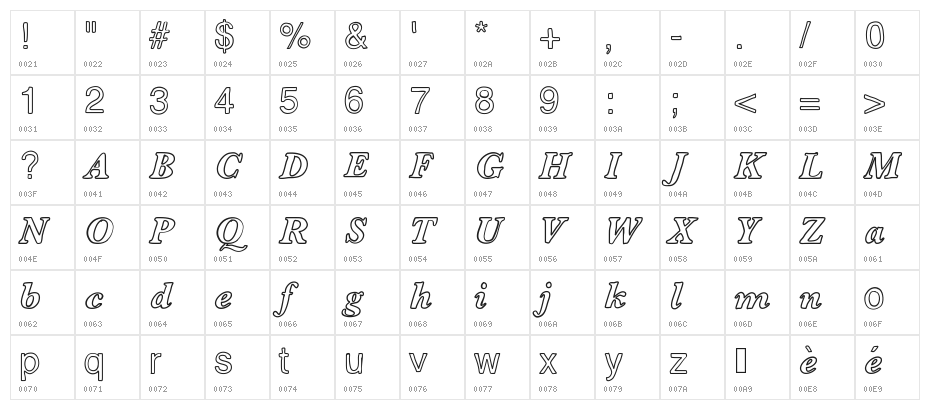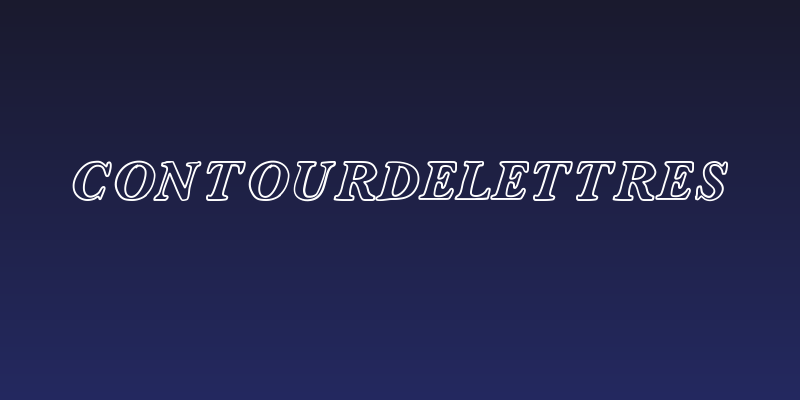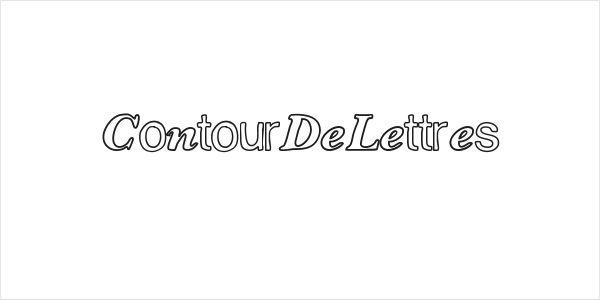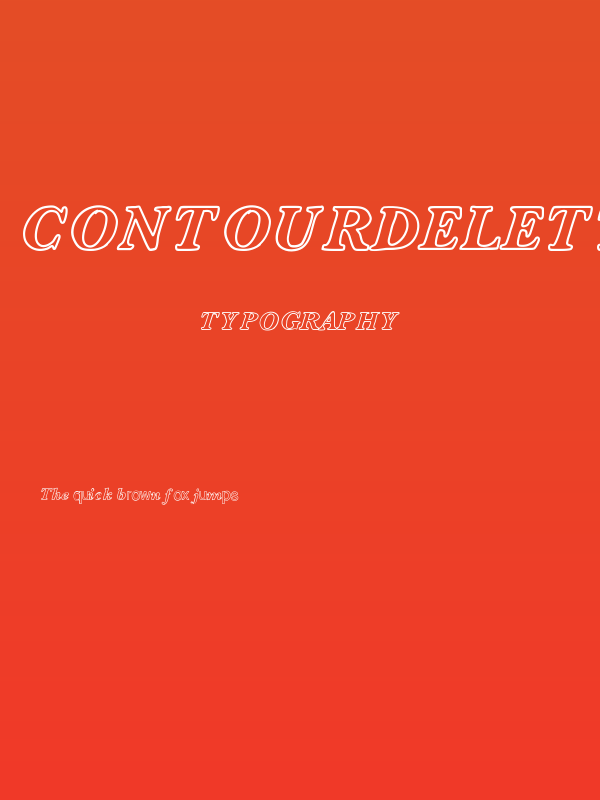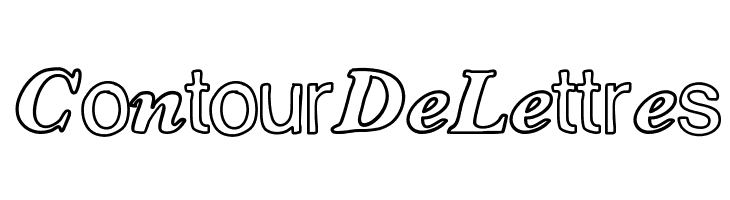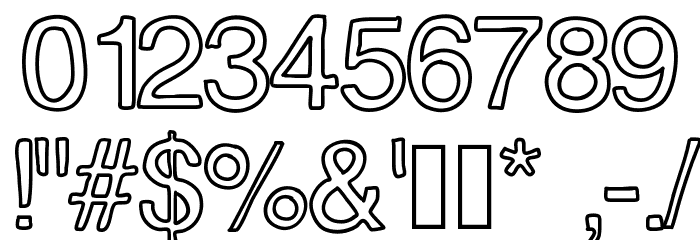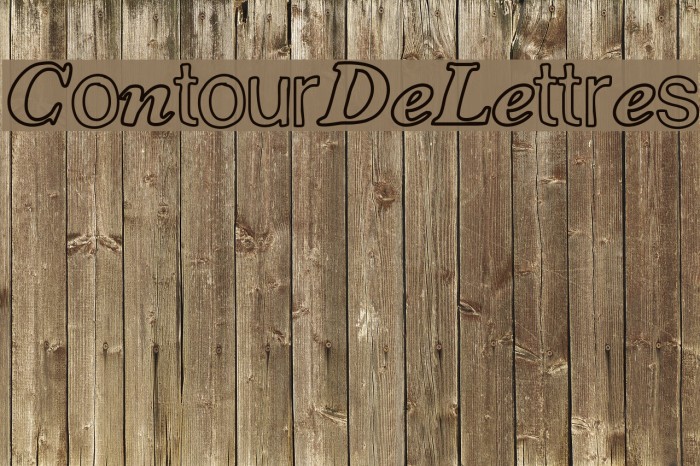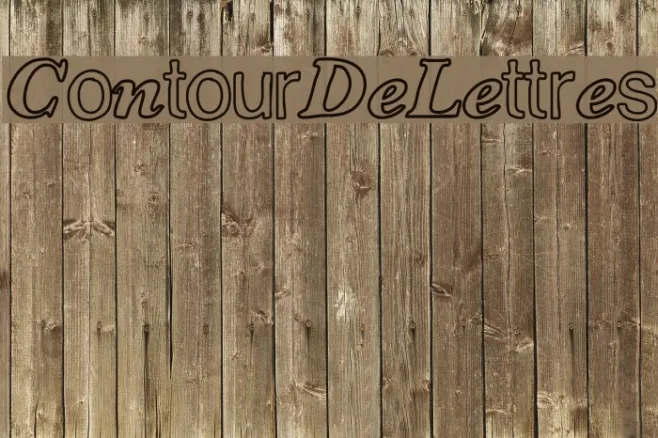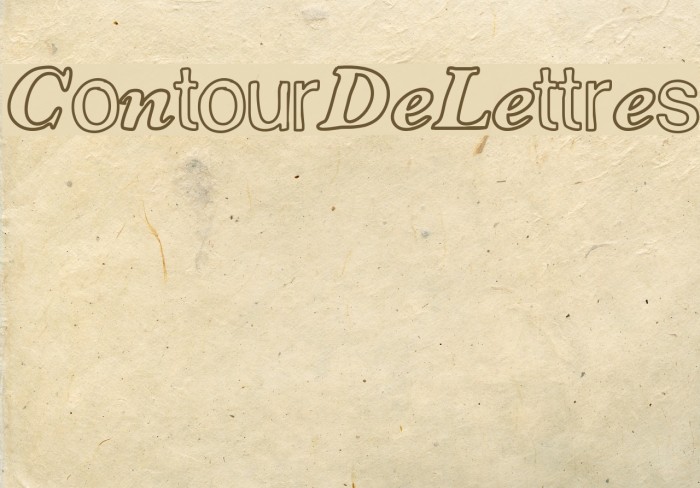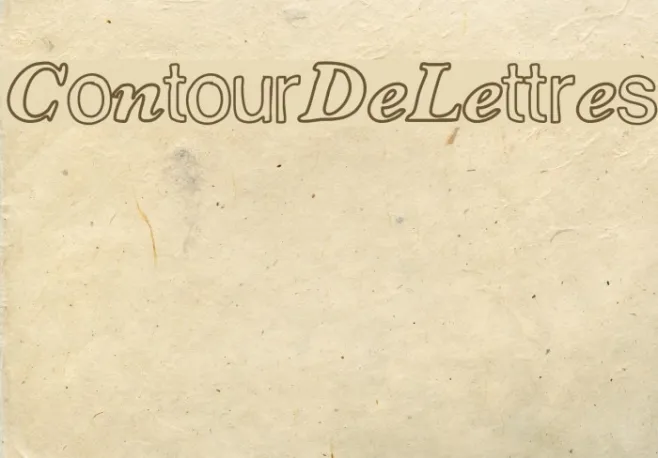
ContourDeLettres Font
ContourDeLettres Description
This font features a distinctive outline style that gives it a unique, eye-catching appearance. The uppercase letters are bold and prominent, with a slight slant that adds a dynamic feel. The lowercase letters maintain the same outline style, offering a cohesive look. Numbers and special characters are also included, each designed with the same outline effect, ensuring consistency across all characters. This font's playful yet elegant style makes it suitable for a variety of creative projects.
| Proposed Projects | Ideal for posters, logos, and headlines where a striking, artistic look is desired. |